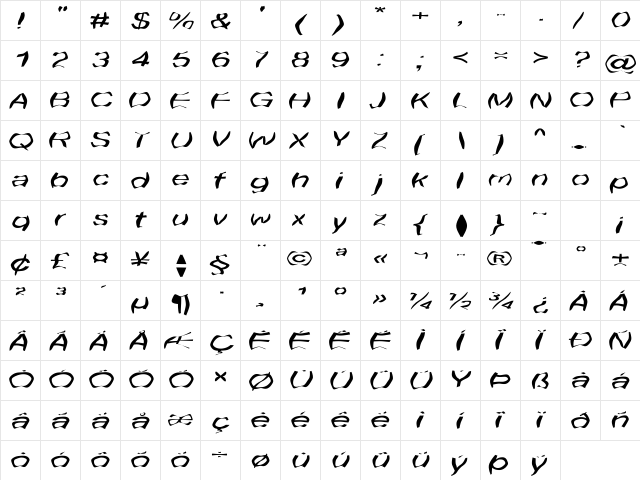
Just Warpin Italic Regular
Design Context for Just Warpin Italic Typeface
Just Warpin Italic is a composed and adaptable typeface that performs quietly and consistently across a wide range of design contexts. The dynamic lean of this cut emphasises speed and emphasis in any layout.
Pro Tip: Try Just Warpin Italic for annotation and caption copy alongside an upright companion — the contrast in angle creates a dynamic but ordered typographic system.